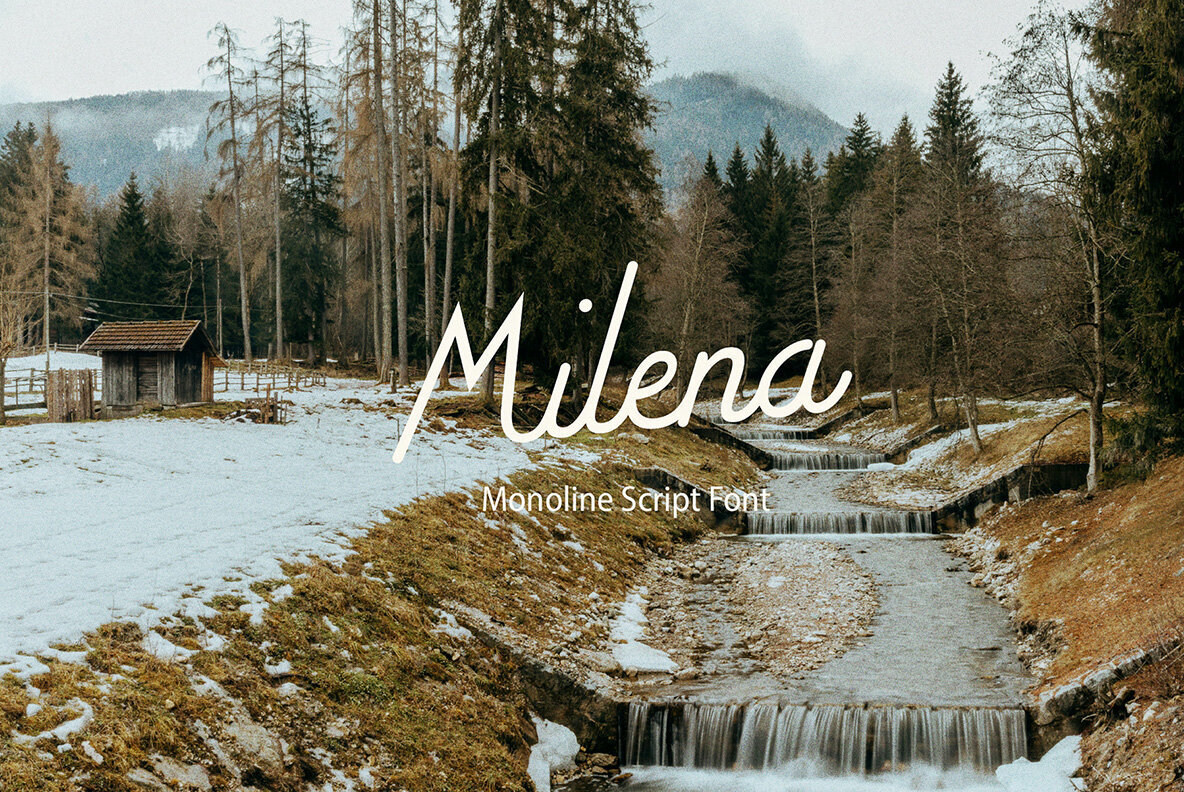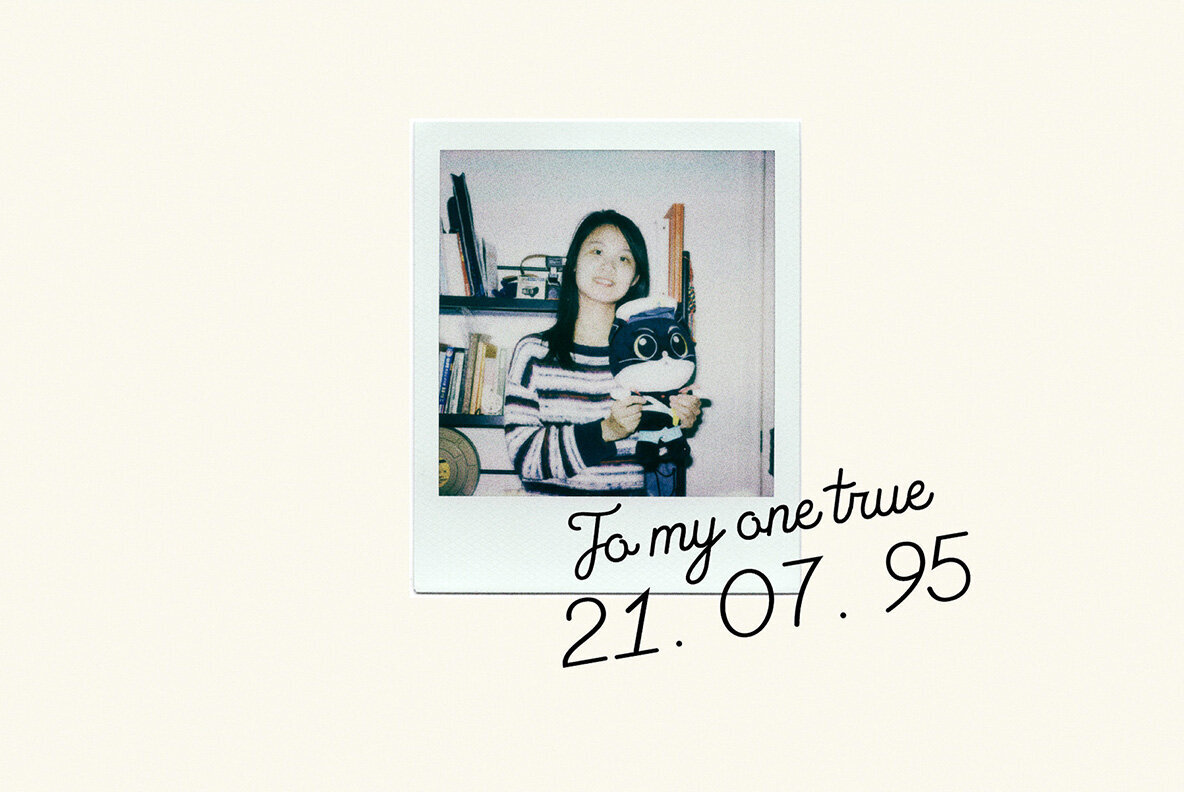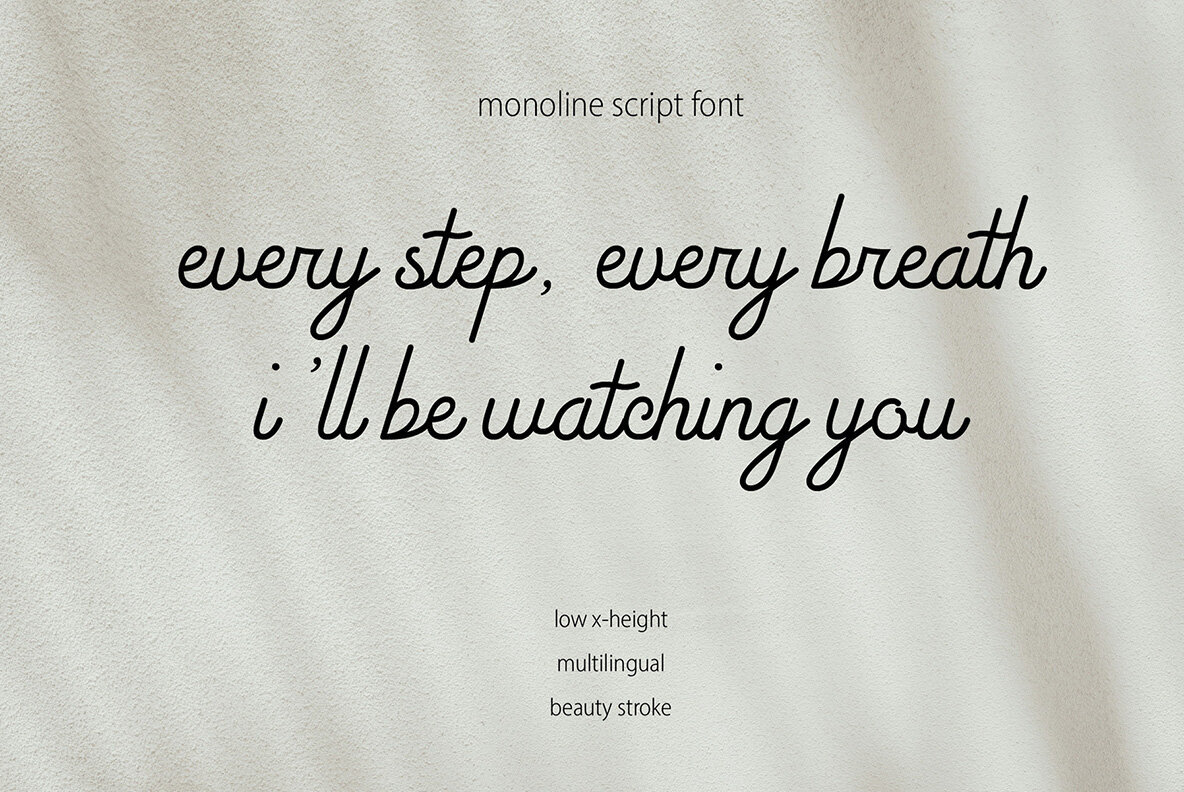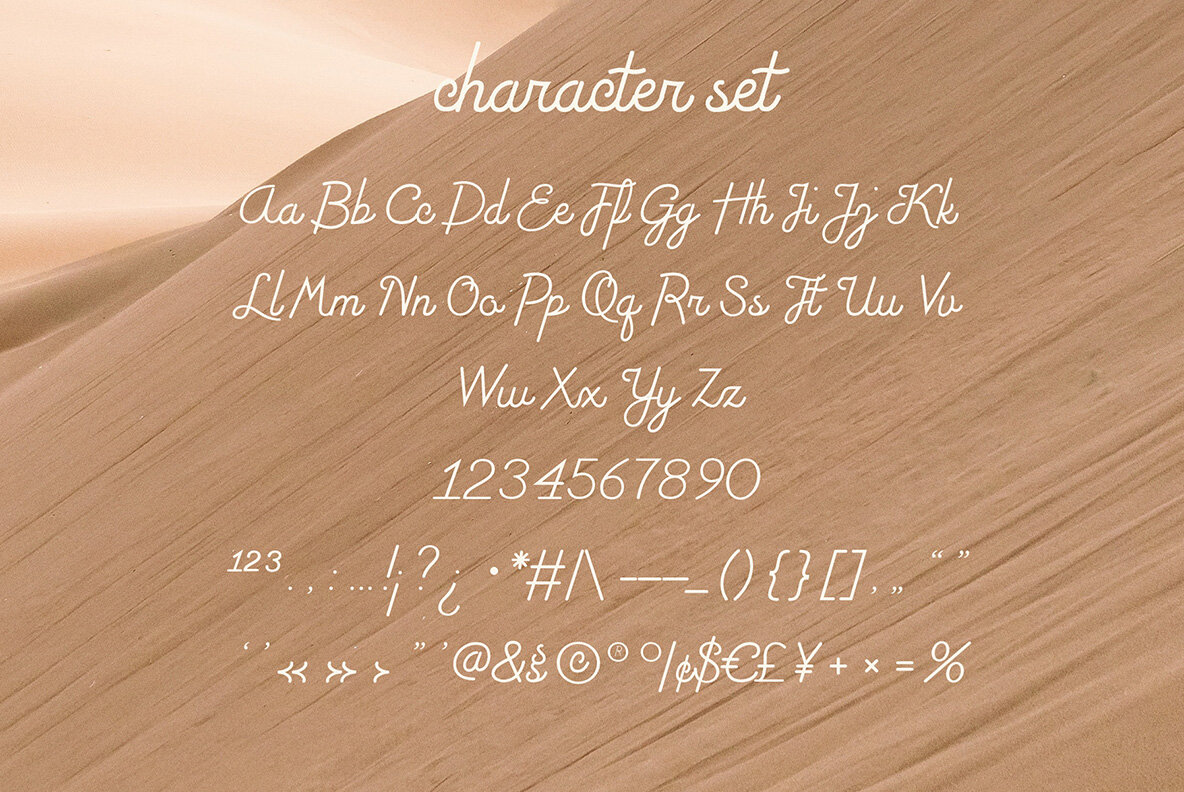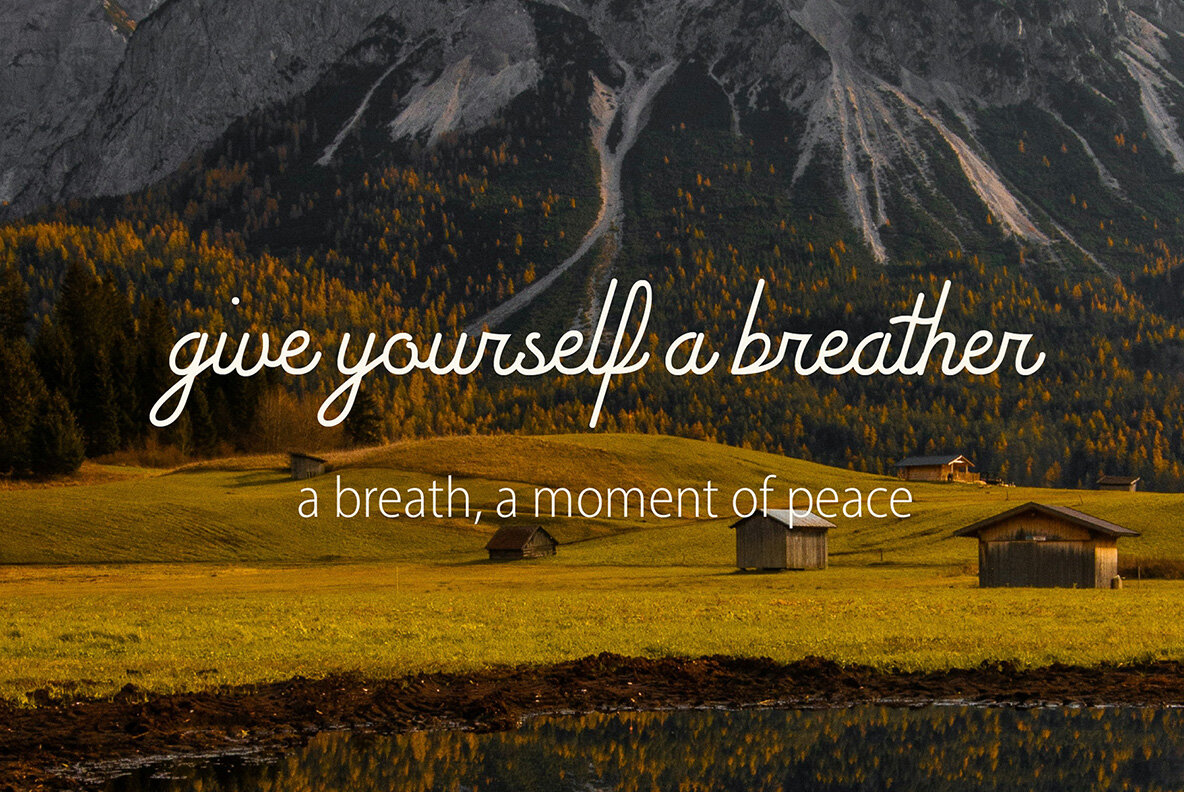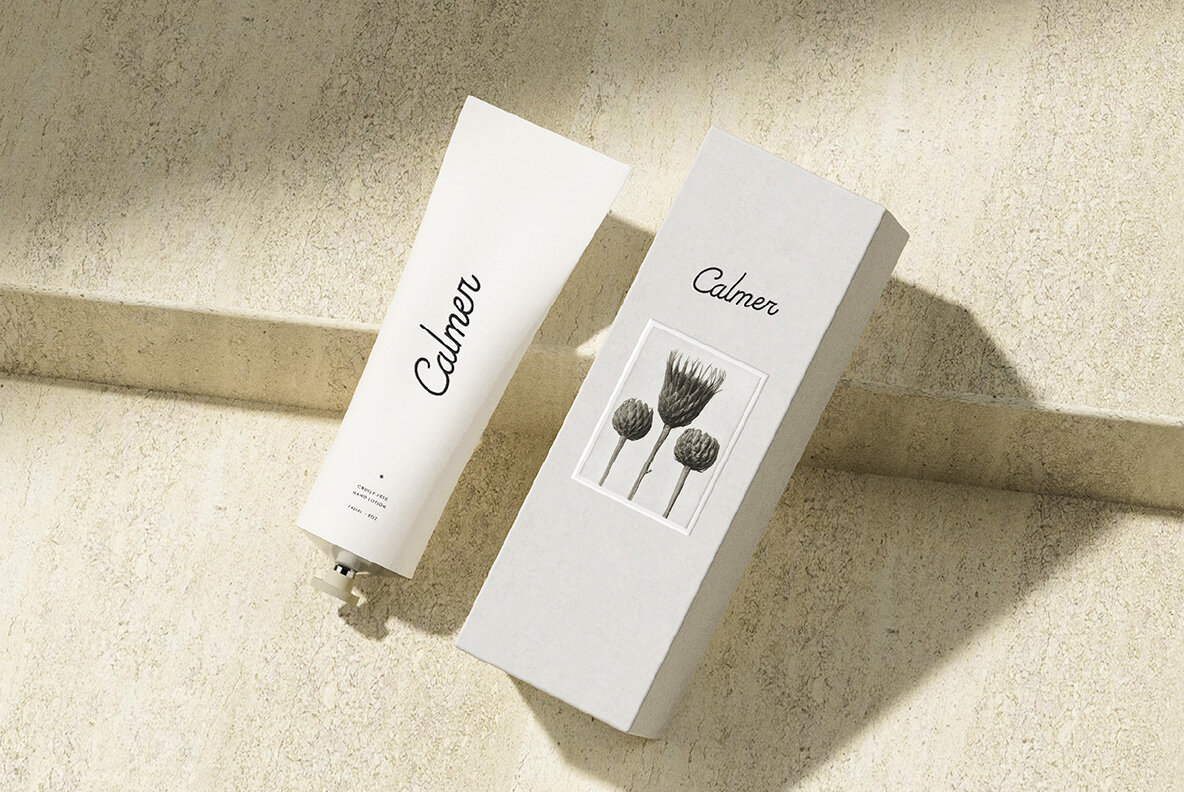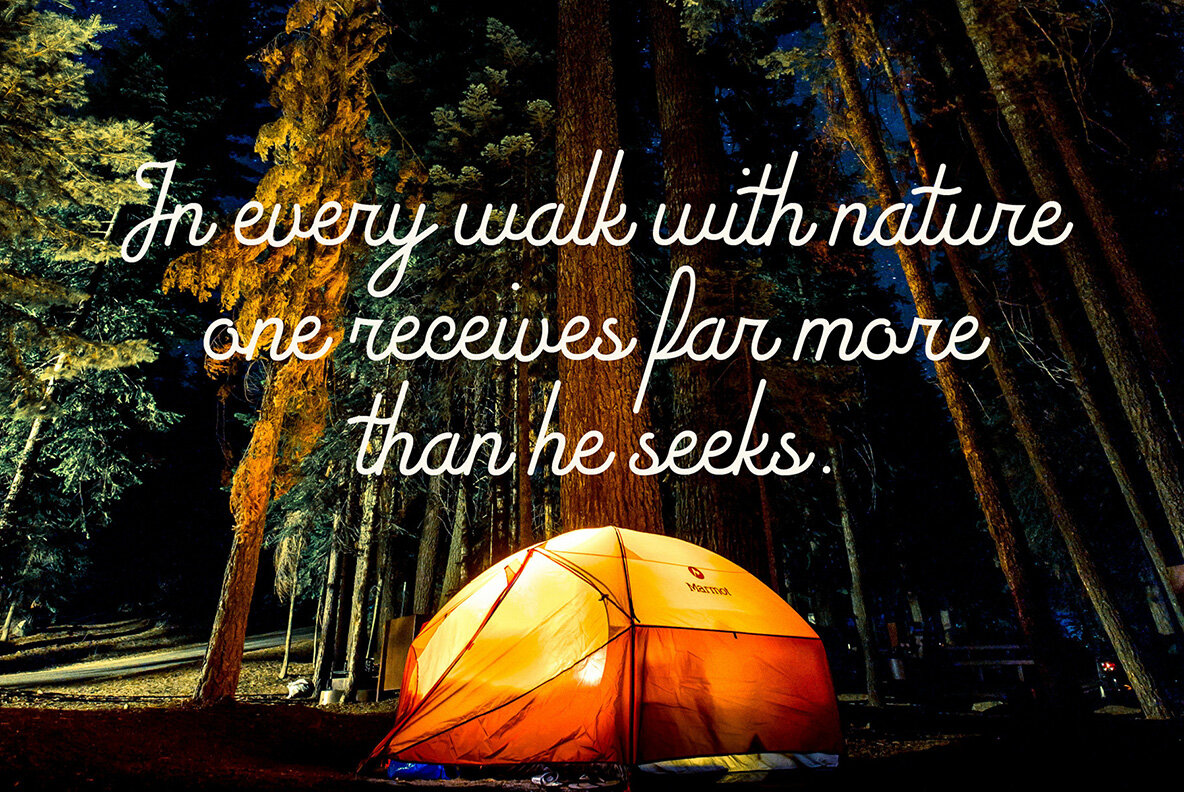
Milena Font
Milena Regular
Milena is an elegant monoline script font, known for its smooth, flowing lines and timeless style.Milena Script: Elegant Monoline Design